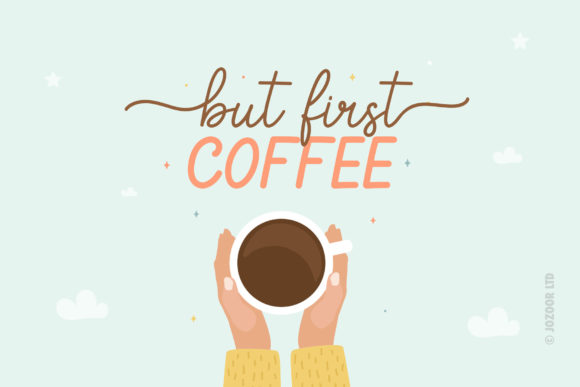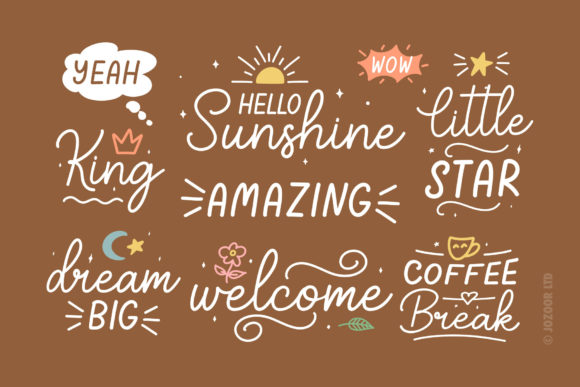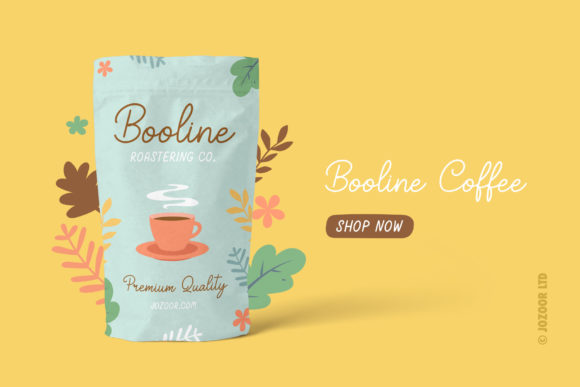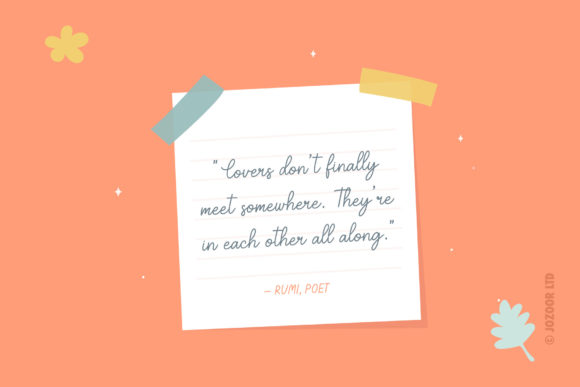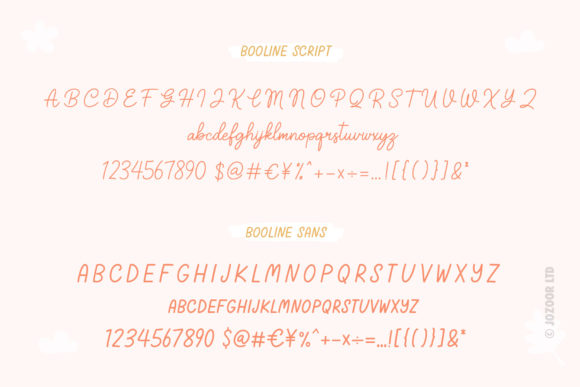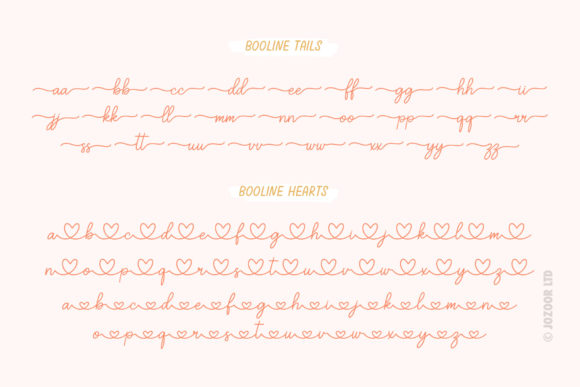
The Perfect Script for Romance: Unveiling the Booline Morning Font
Have you ever stumbled upon a beautiful, handwritten font that instantly sparks an idea for a romantic project? For many designers, this is a moment of pure creative bliss. It’s the moment when the perfect font reveals itself, and the possibilities seem endless. For us, this moment came when we discovered the Booline Morning Font – a stunning, duo-styled handwritten font that embodies the essence of romance and whimsy.
As a versatile and delicate font, Booline Morning Font is ideal for a wide range of projects, from wedding invitations and save the date cards to fine art papery and feminine branding. Its charming character makes it a valuable asset for designers looking to add a touch of elegance and sophistication to their work. With its romantic vibe and endless creative possibilities, the Booline Morning Font is sure to become a go-to favorite for any designer seeking to create truly unforgettable designs.
Booline Morning Font Review
Booline Morning Font is a beautiful, hand-drawn script font that immediately catches the eye. The ✨ playful and whimsical nature of the font makes it perfect for adding a touch of warmth and personality to designs.
The font’s ✨ irregularities and imperfections give it a handmade feel that’s both charming and unique. The letterforms are ✨ well-designed, with a clear and readable structure that makes it suitable for a wide range of applications.
One of the main limitations of Booline Morning Font is its ✠ lack of legibility at smaller font sizes. This makes it challenging to use for body text or headlines in situations where readability is a top priority.
Another limitation is the font’s ✠ limited language support. This may be a concern for designers working on multilingual projects or those who need to support a wide range of languages.
Overall, I think Booline Morning Font is a great choice for designers looking to add a touch of personality and whimsy to their designs. While it may have some limitations, its unique charm and well-designed letterforms make it a valuable addition to any font library.
Recommendation
- Use Booline Morning Font for titles, headings, and other design elements where you want to add a touch of personality.
- Avoid using Booline Morning Font for body text or situations where readability is a top priority.
- Be mindful of the font’s limited language support when working on multilingual projects.
The Booline Morning Font is a beautiful, elegant script font that is perfect for wedding invitations, greeting cards, and other creative projects. To get the most out of this font, use it in combination with other elegant fonts and design elements to create a sophisticated and stylish design. Common use cases for this font include:
- Greeting cards and party invitations
- Wedding and event signage
- Stationery and letterhead